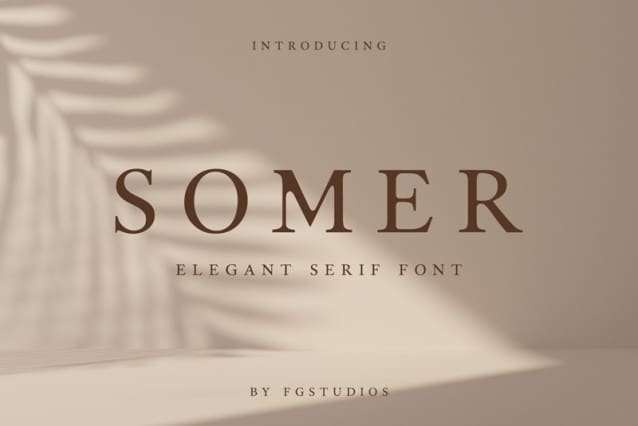
Somer Font
Somer Font, is a classy serif font that brings elegance to your text. With its sleek lines and sophisticated curves, it adds a touch of refinement to any project. Perfect for fashion magazines, stylish invitations, or upscale branding, it exudes confidence and sophistication. Whether you’re aiming for a timeless look or a modern edge, this font is sure to elevate your design with its understated elegance.